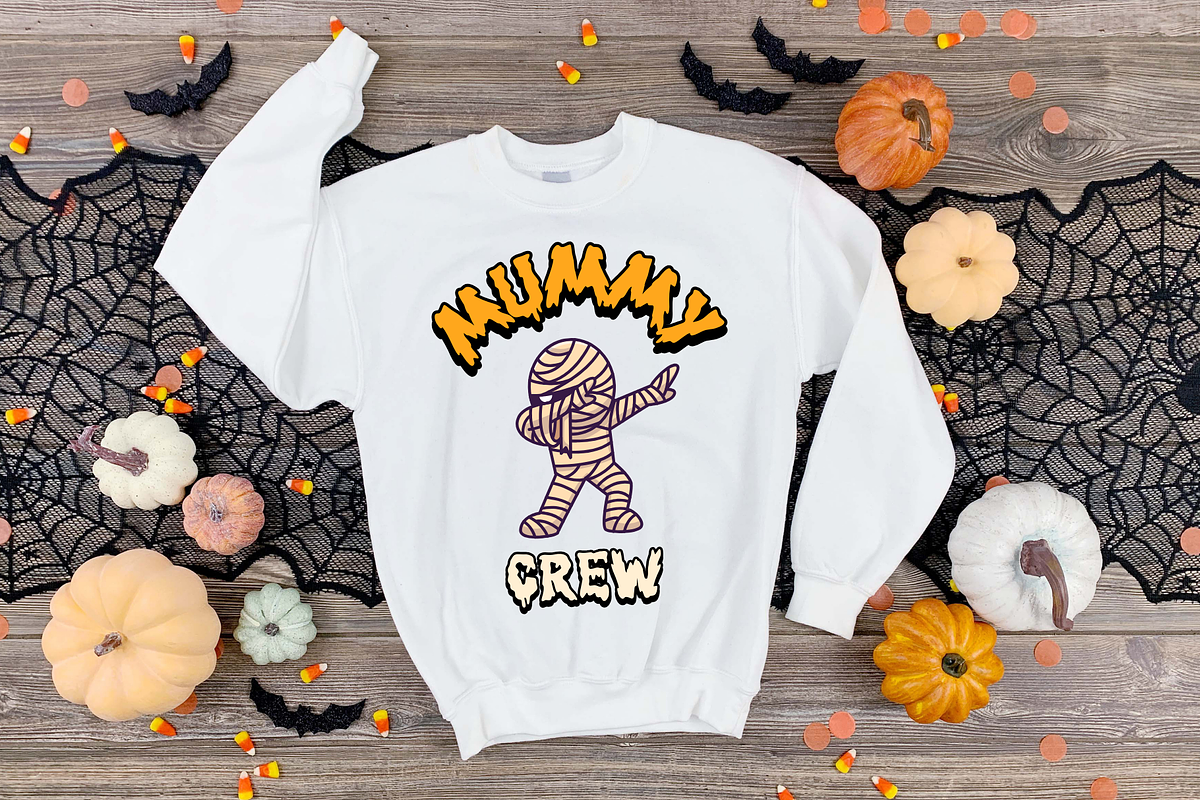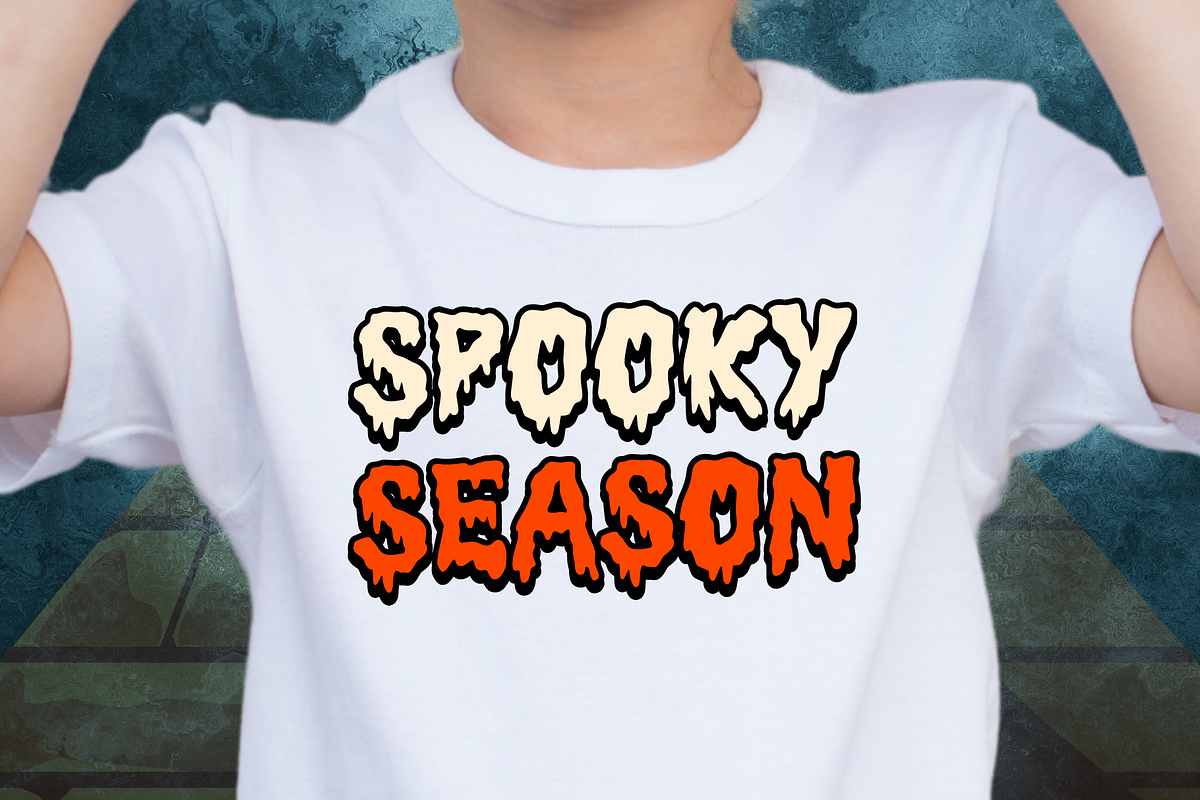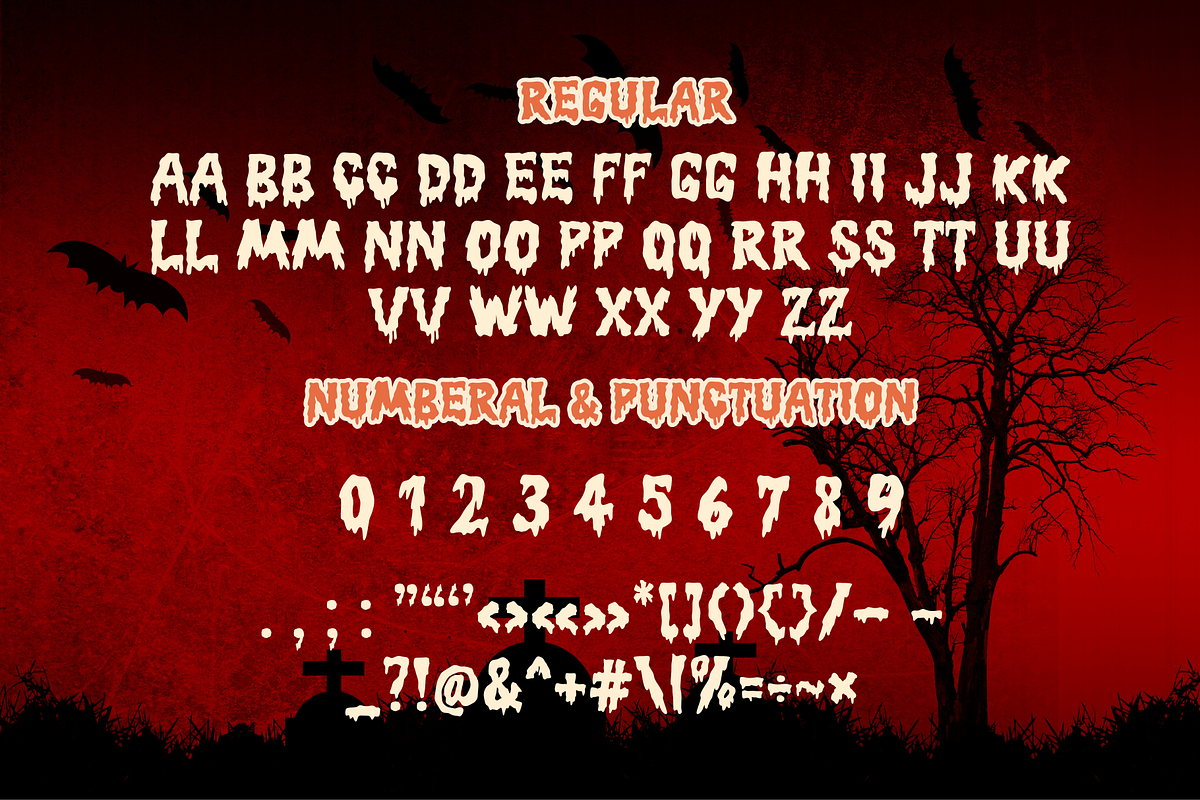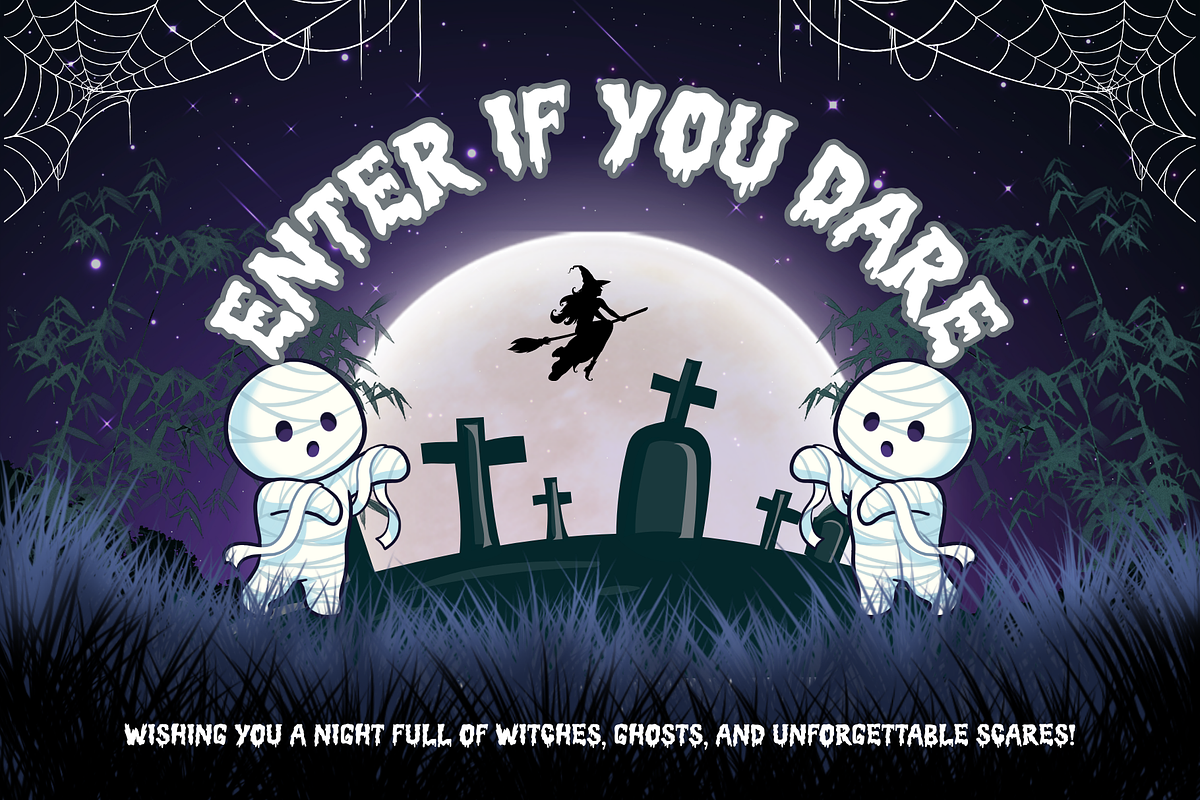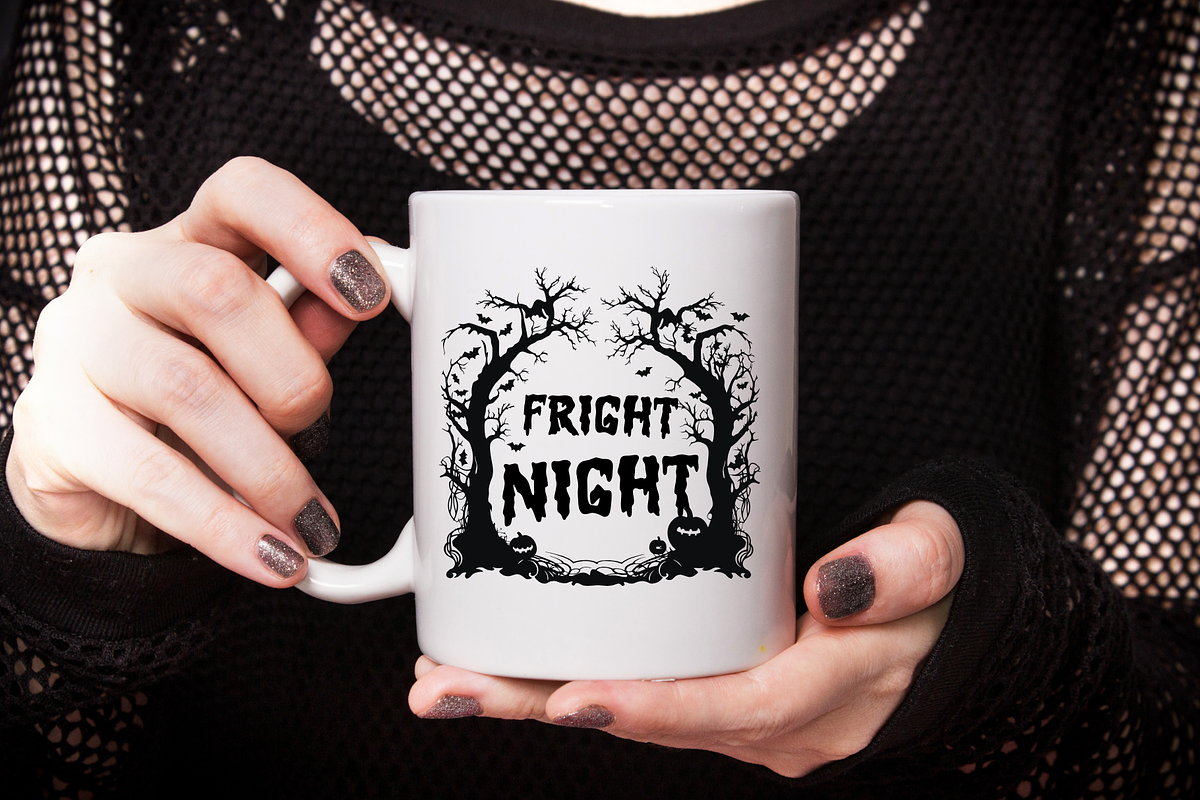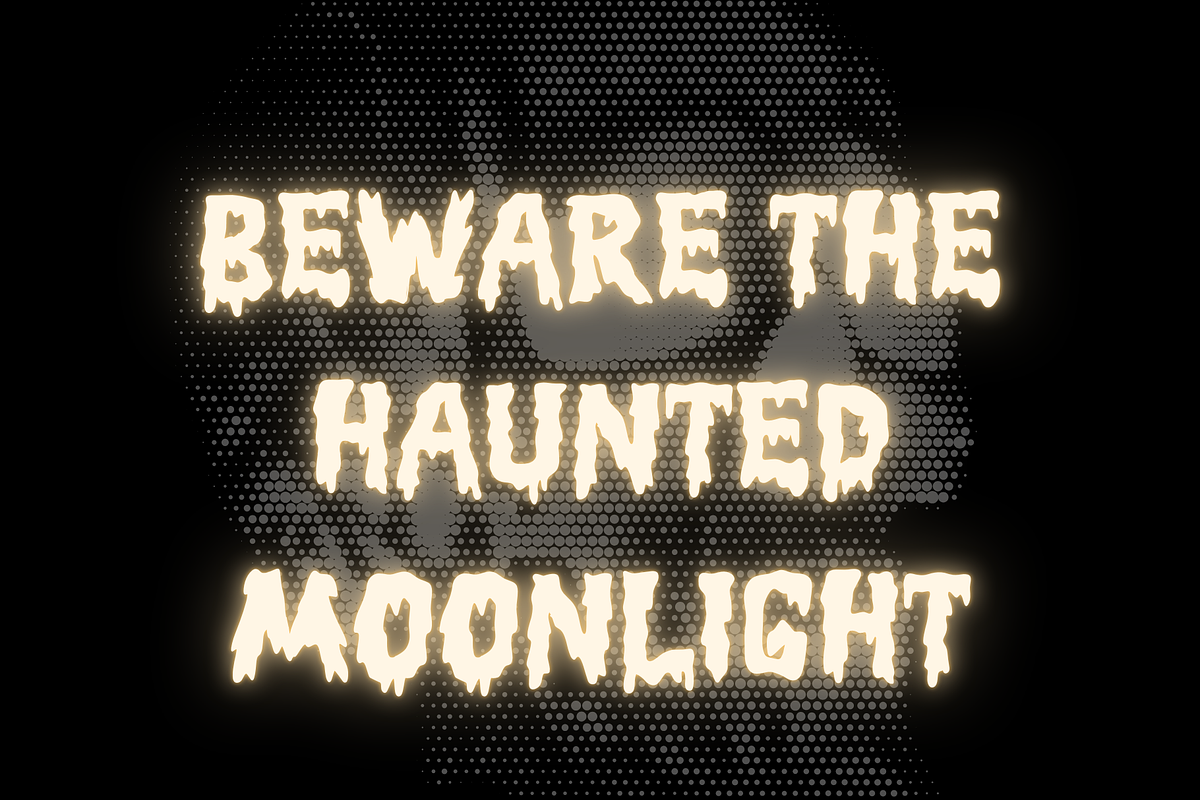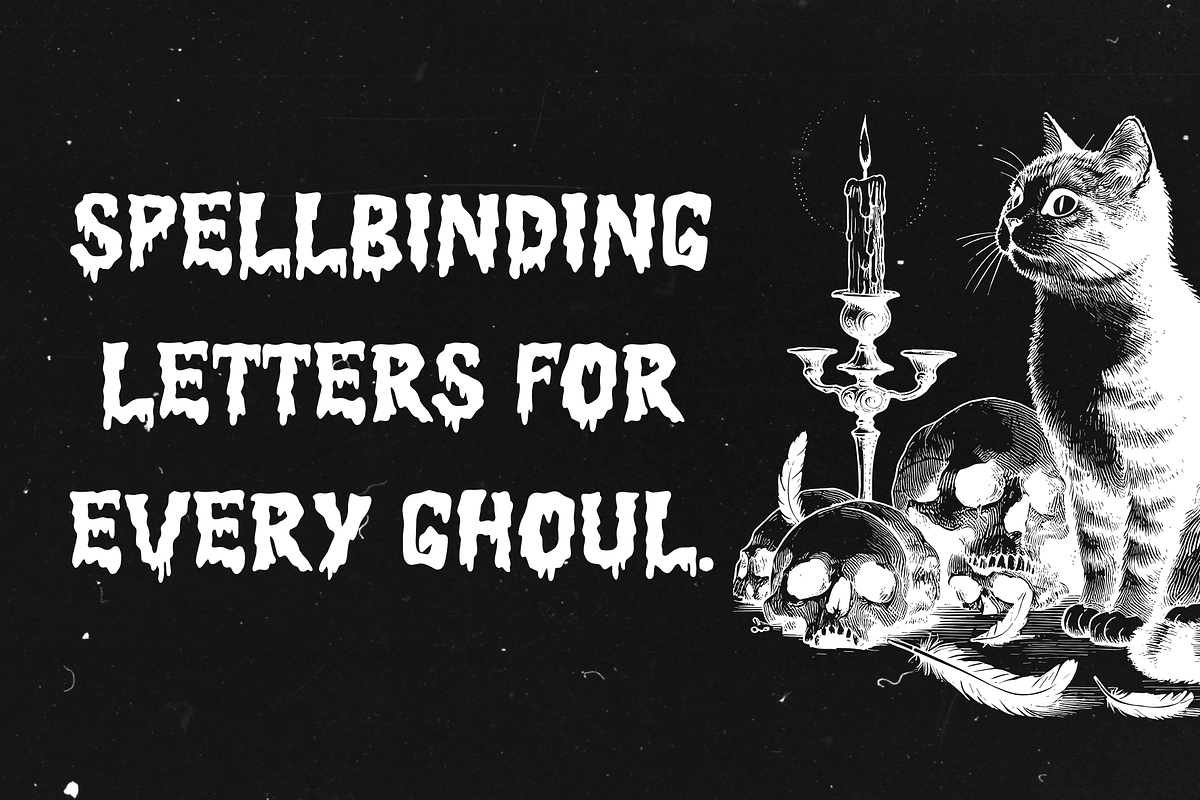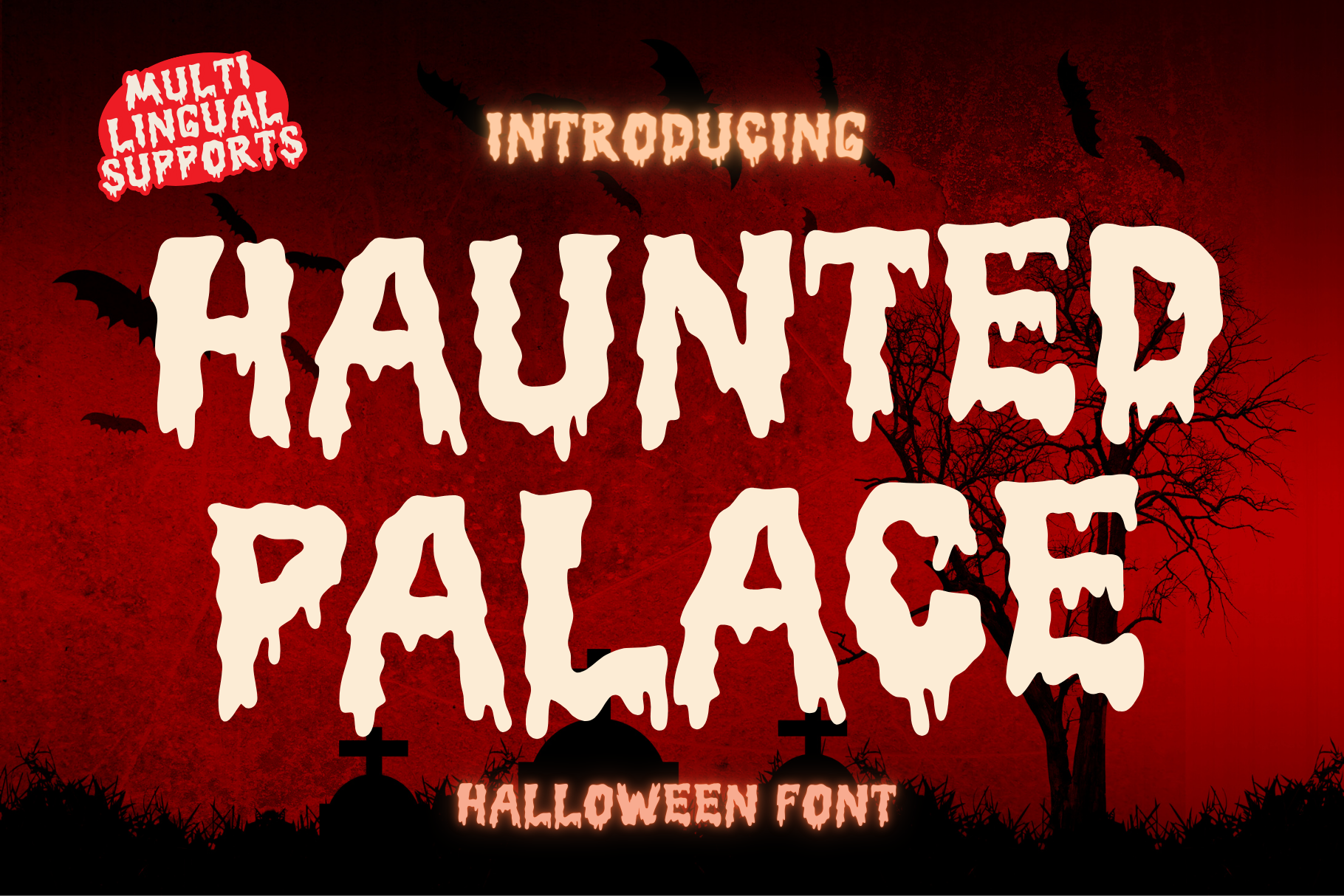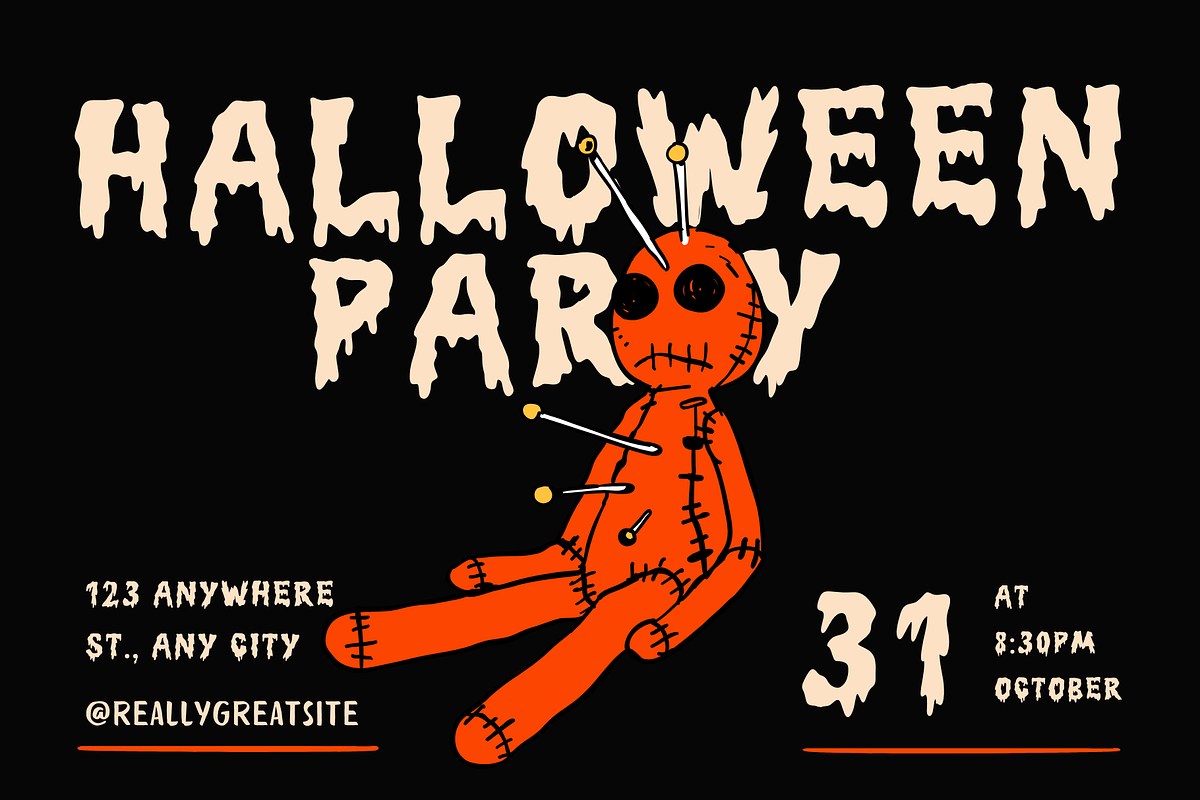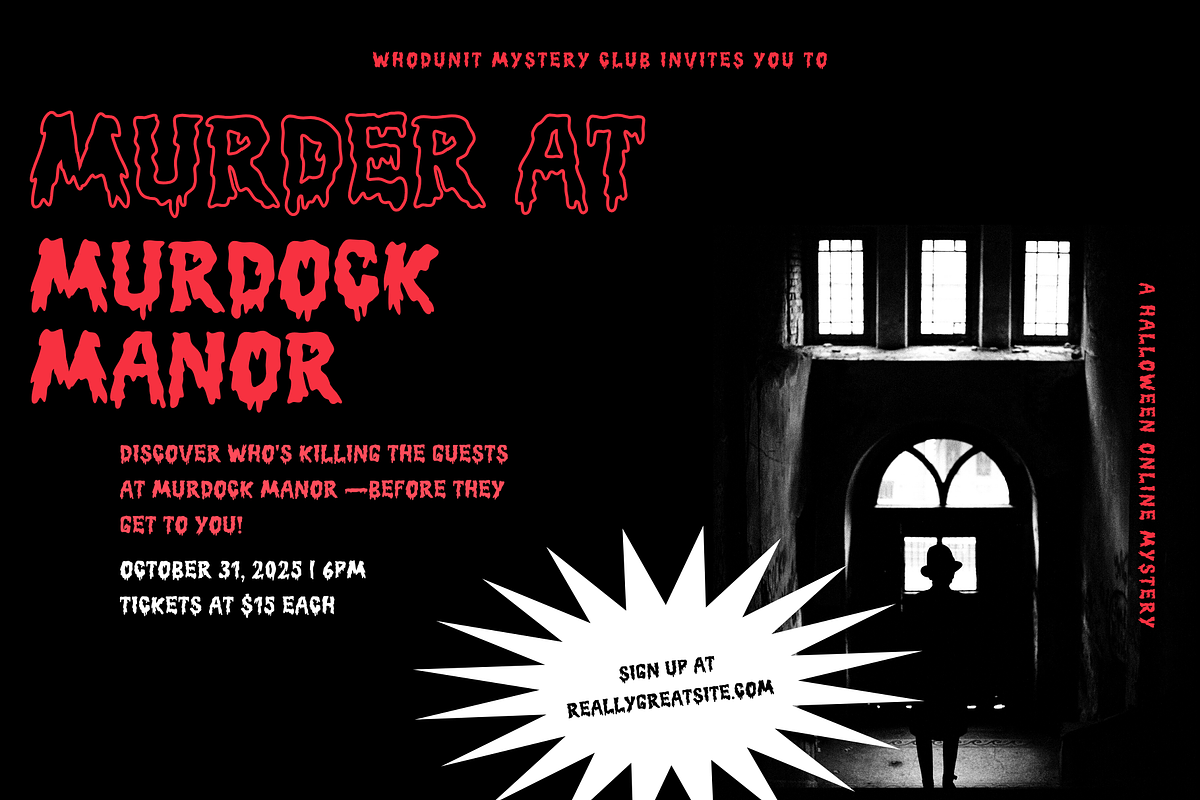
Haunted Palace is a Halloween font
Haunted Palace is a Halloween decorative font designed to evoke fear and tension. With jagged edges, irregular shapes, and a sinister style, it’s perfect for posters, Halloween themes, and thriller titles. This typeface delivers a haunting atmosphere that instantly grabs attention and sets a dark tone.